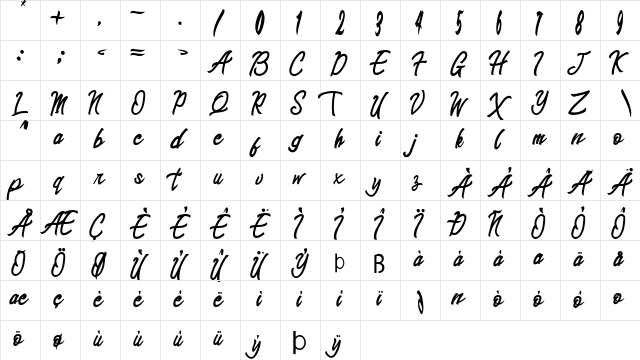
Sinestesia Regular
Design Context for Sinestesia Typeface
Sinestesia is a composed and adaptable typeface that performs quietly and consistently across a wide range of design contexts.